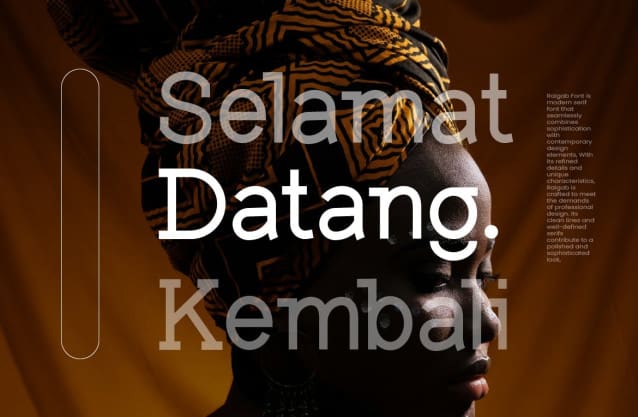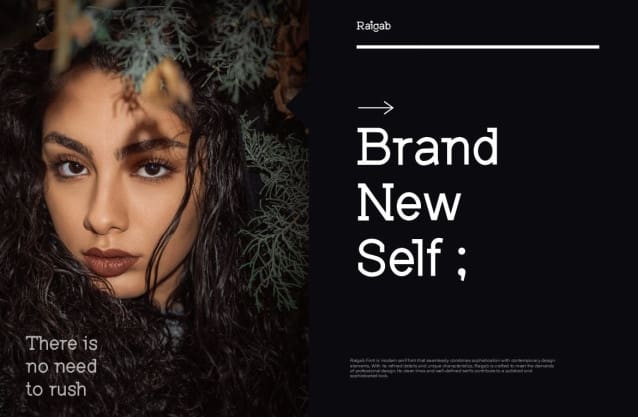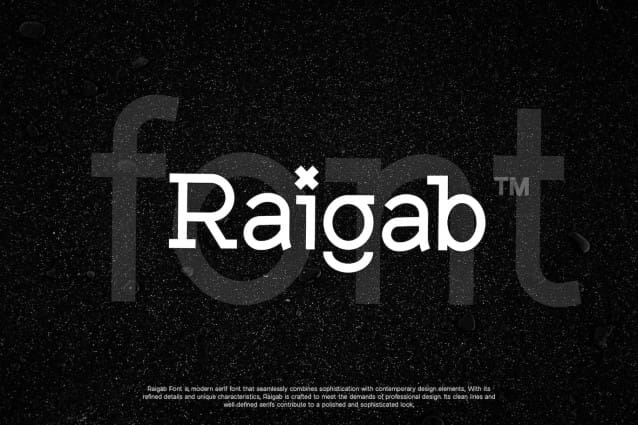
Raigab Font
Raigab Font is a modern Serif font that seamlessly combines sophistication and contemporary design elements. With its refined details and unique features, Raigab is designed to meet the demands of professional design. Its clean lines and well-defined serifs contribute to a refined and sophisticated look